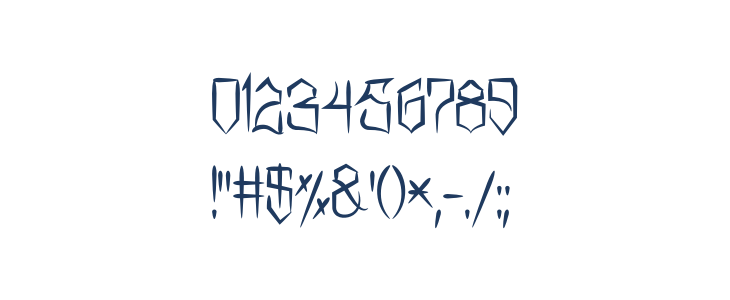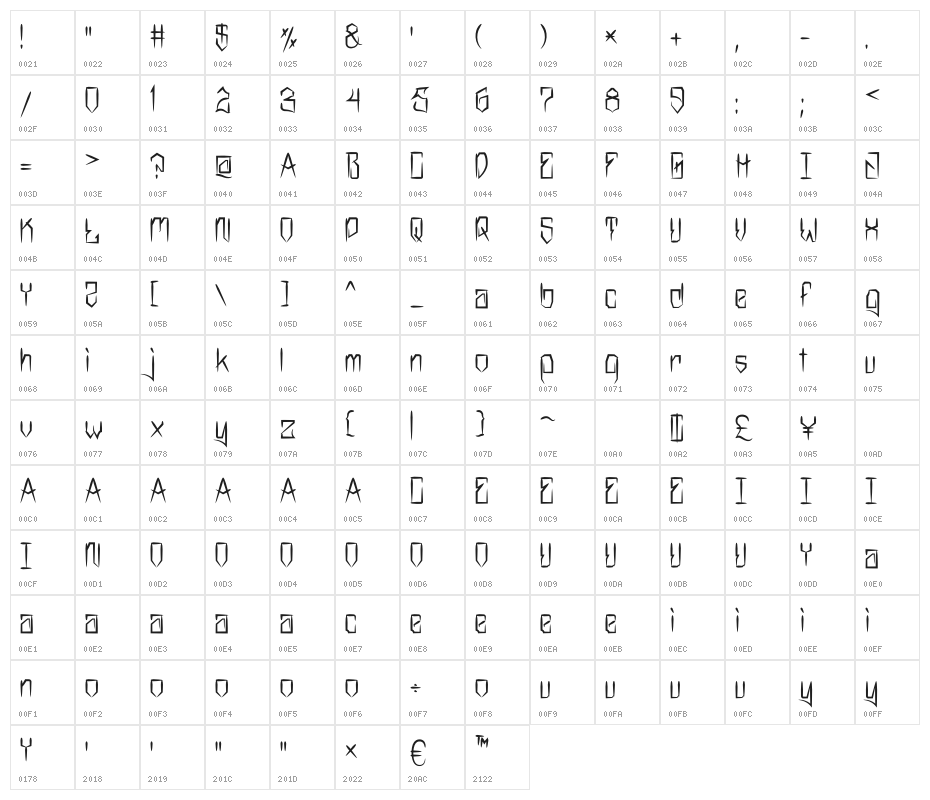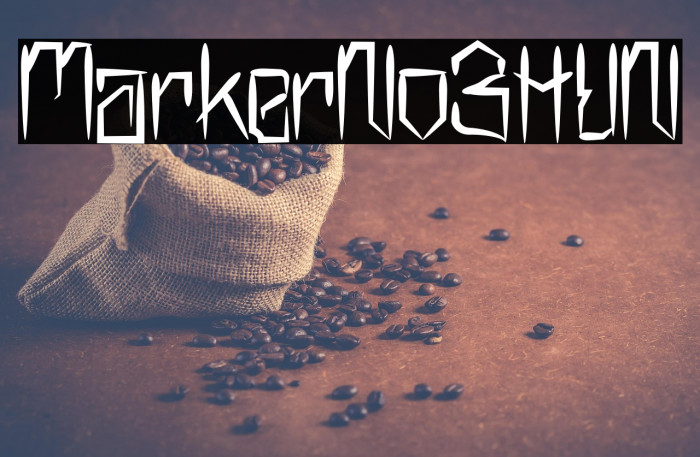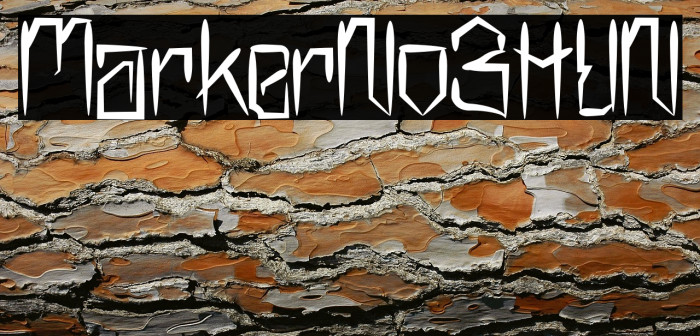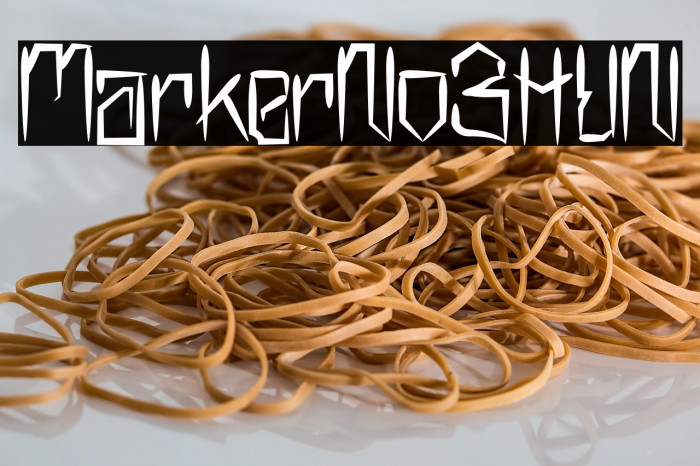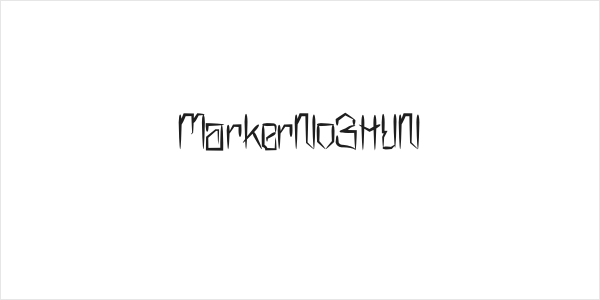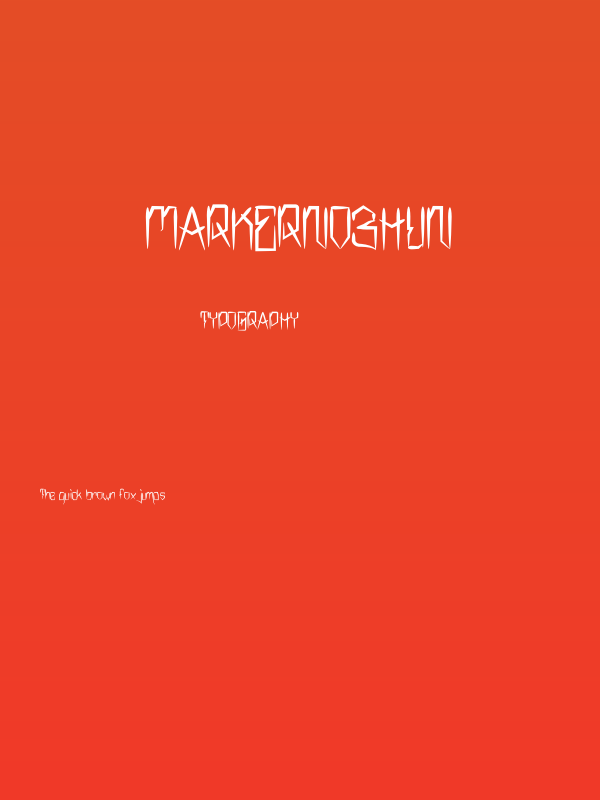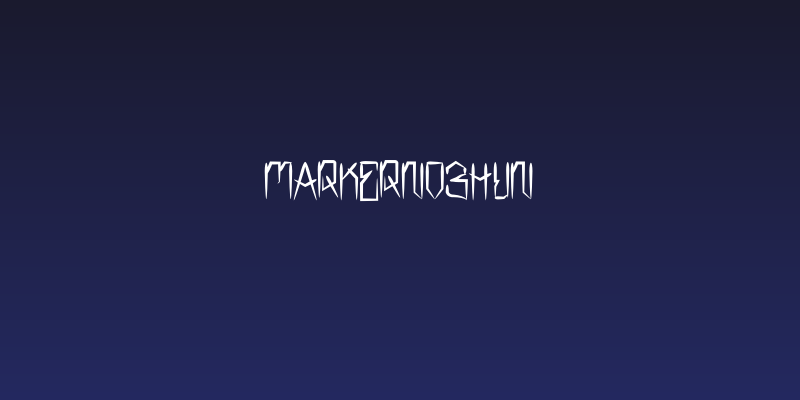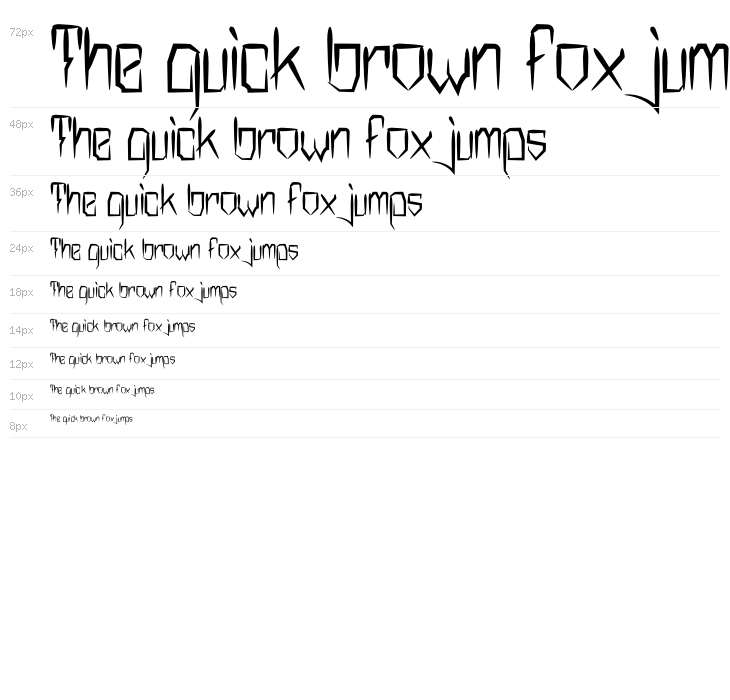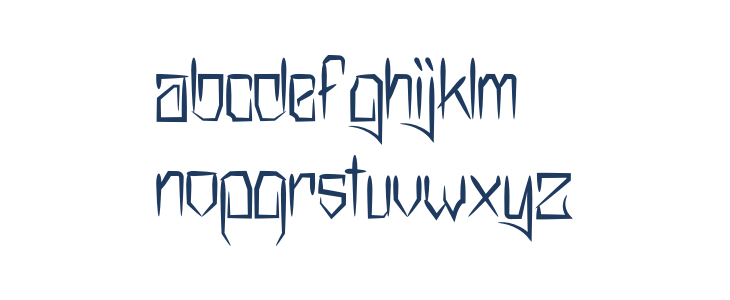
MarkerNo3HUN Font
MarkerNo3HUN Description
This font features a bold, angular design with sharp edges and a geometric structure. The uppercase letters are particularly striking, with a distinct, almost futuristic appearance. The lowercase letters maintain the same angular style, creating a cohesive look throughout. Numbers and special characters follow the same design principles, ensuring consistency. The overall aesthetic is modern and edgy, making it suitable for projects that require a strong visual impact.